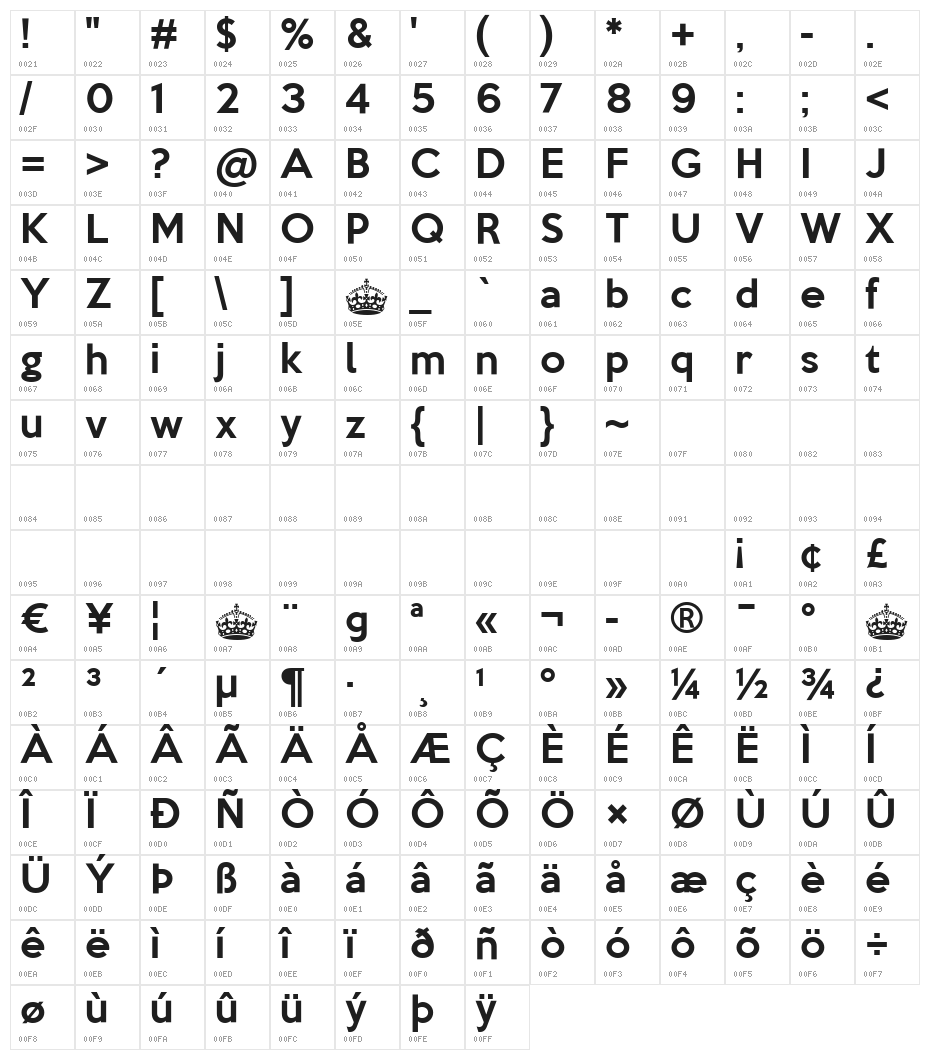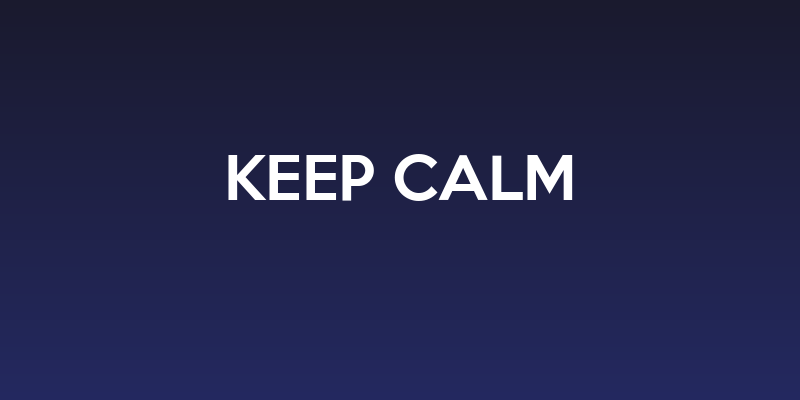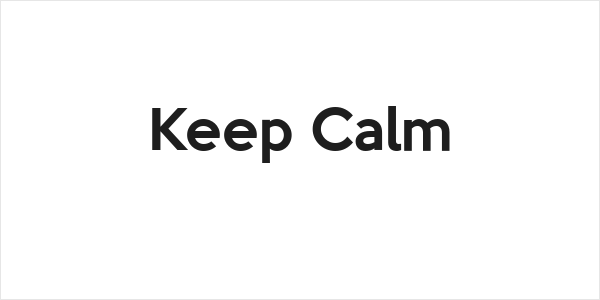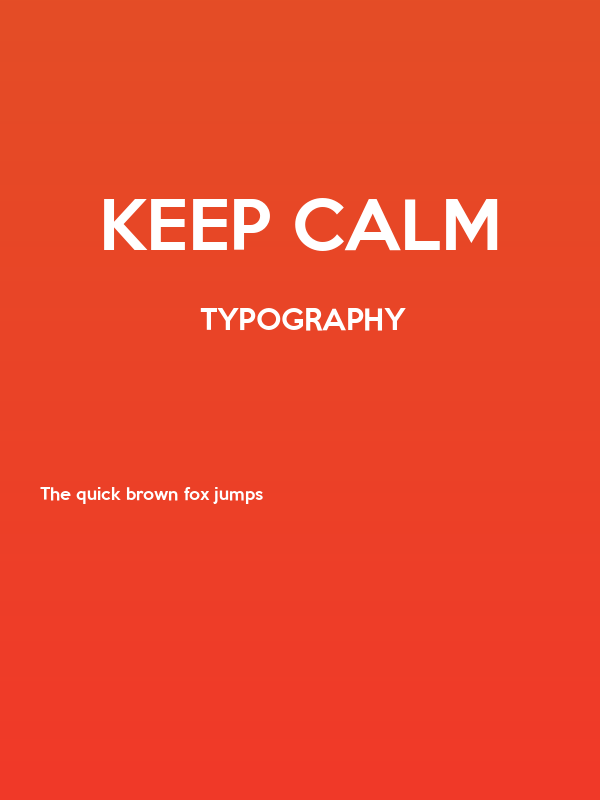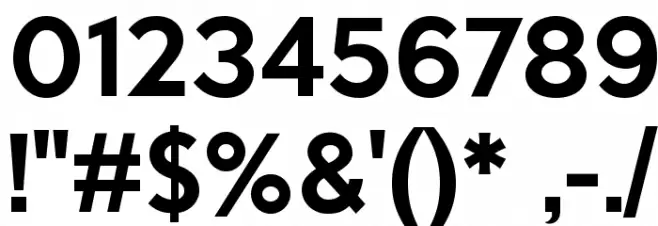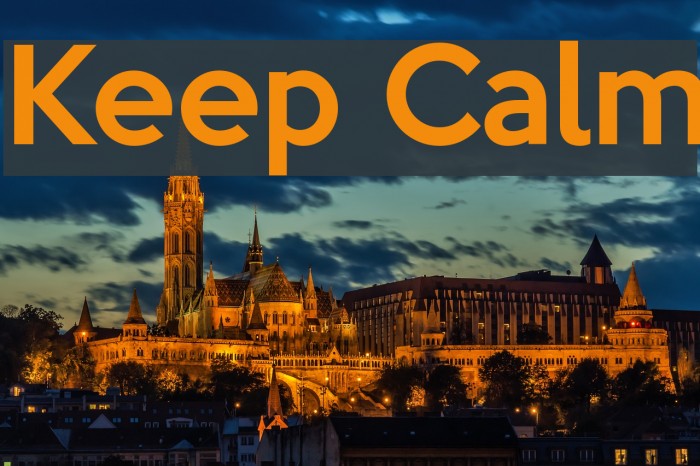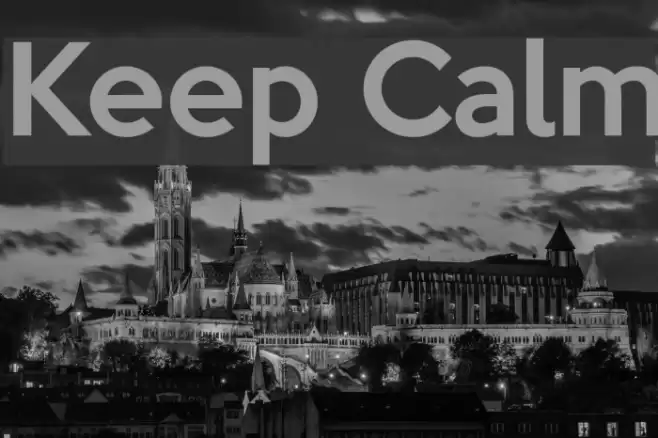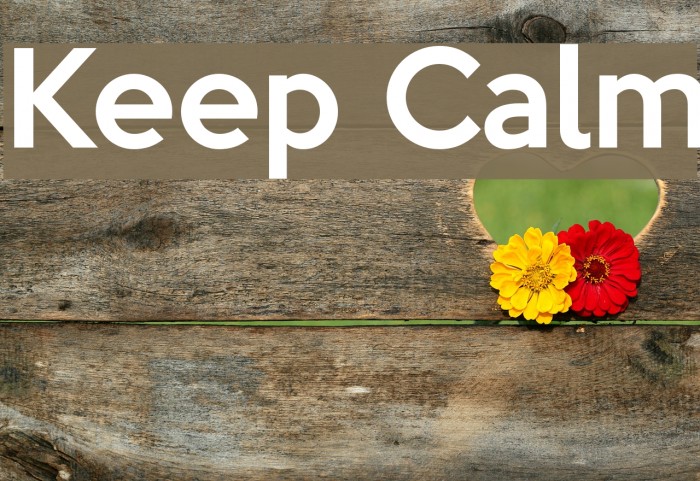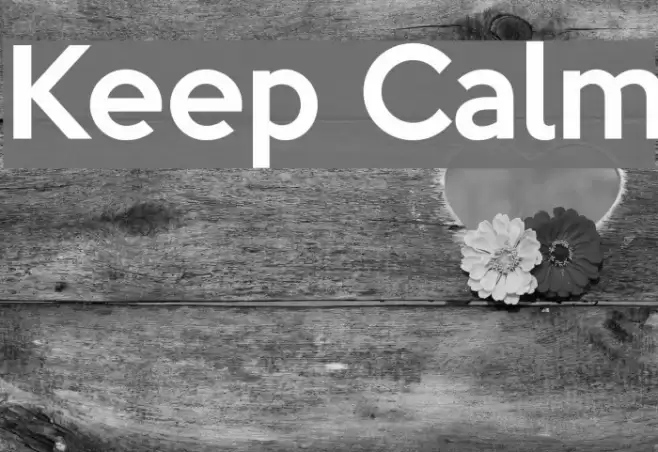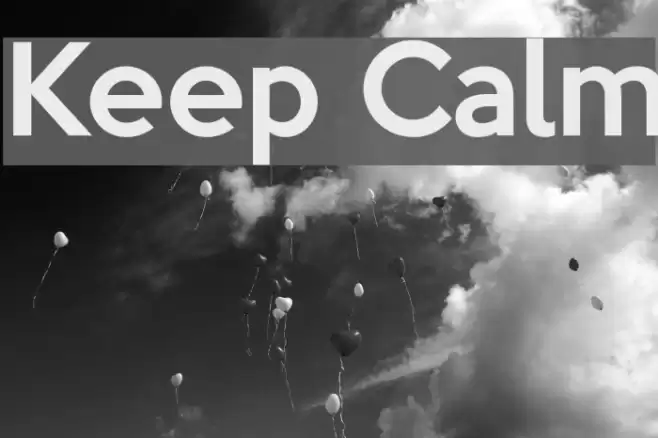
Keep Calm Font
Keep Calm Description
This font features a clean and modern sans-serif design, characterized by its bold and uniform stroke weight. The letters are well-proportioned, with a consistent height and width that ensures readability across various sizes. The uppercase and lowercase letters maintain a harmonious balance, while the numerals are clear and easily distinguishable. The special characters are designed to complement the overall style, adding versatility to the font's use. Its simplicity and clarity make it suitable for a wide range of applications, from digital media to print.
| Use Case | Headlines, Body text, Logos |
| Proposed Projects | Ideal for branding, advertising, web design, and editorial layouts. |